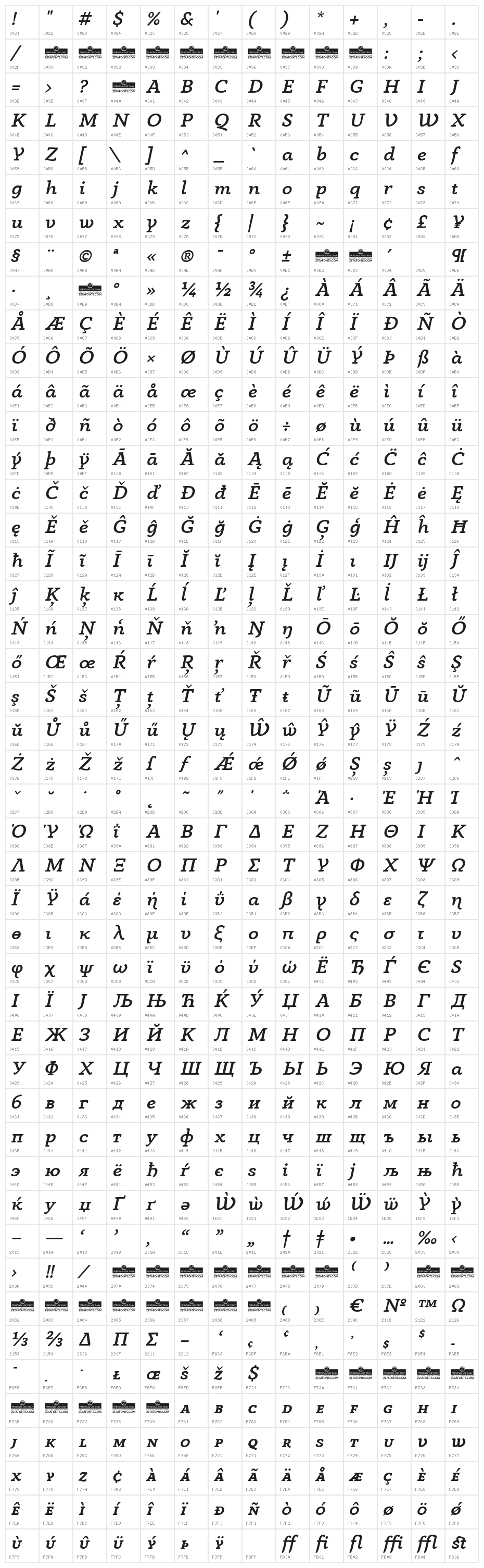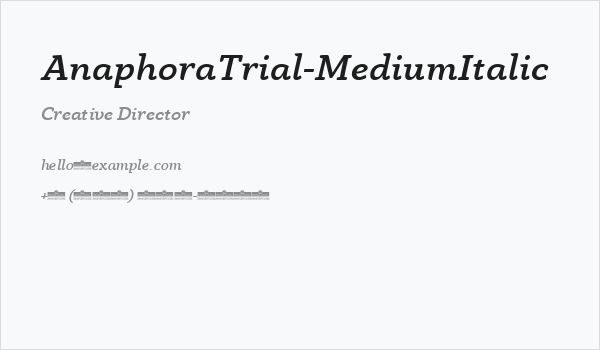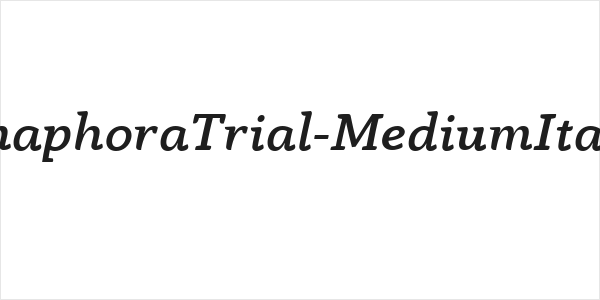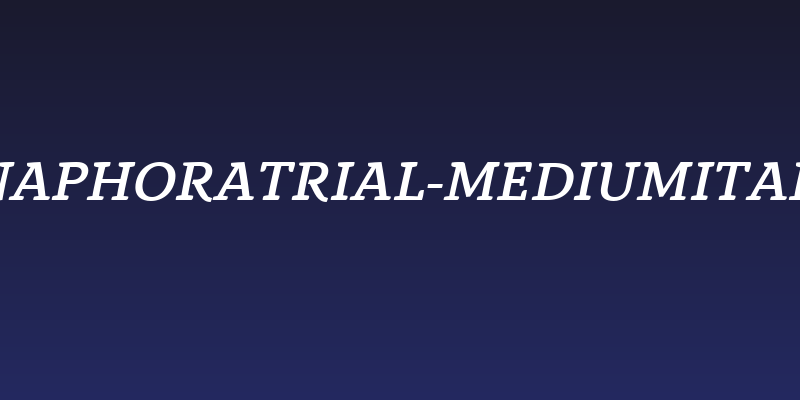
AnaphoraTrial-MediumItalic Font
AnaphoraTrial-MediumItalic Description
This font exhibits a refined and elegant style with a medium weight and italicized form. The characters are slightly slanted, giving a dynamic and fluid appearance. The serifs are subtle yet pronounced, adding a touch of sophistication. The overall design is balanced, with consistent stroke widths and smooth curves. The uppercase letters are bold and commanding, while the lowercase letters maintain a graceful flow. The numerals and special characters are well-integrated, maintaining the font's cohesive aesthetic.
| Proposed Projects | Ideal for projects requiring a touch of elegance, such as wedding invitations, formal event programs, or luxury brand logos. |